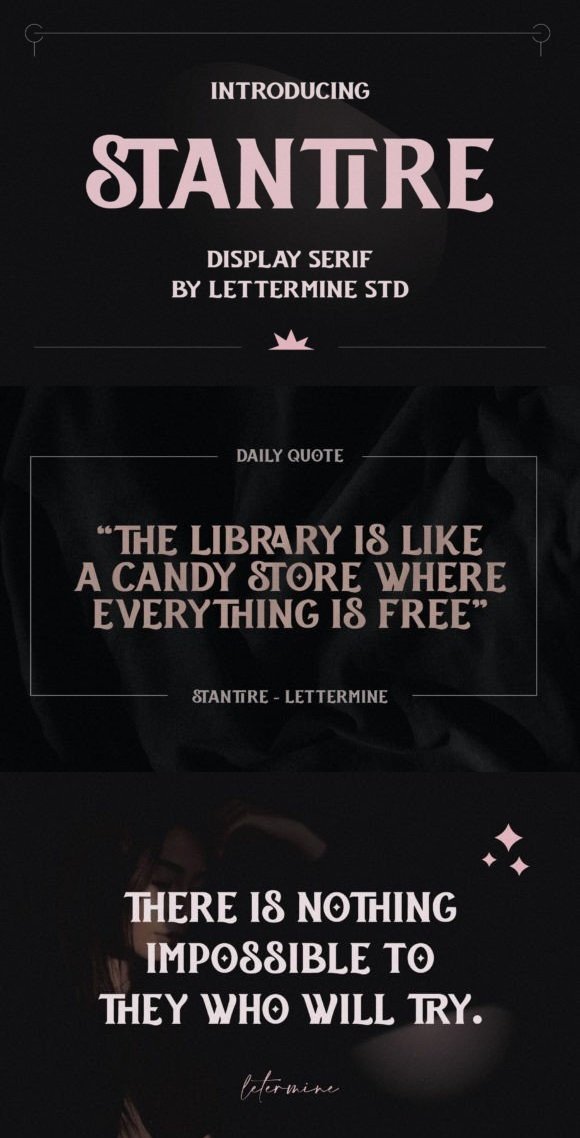
CM - Stantire - All Caps Display Font 42231002
Stantire is a sleek and commanding display font exuding sophistication and authority. Its clean lines and sharp angles convey a sense of modernity and professionalism. Ideal for titles, headlines, and branding, Stantire adds a touch of elegance and gravitas to any design, making a lasting and impactful impression.